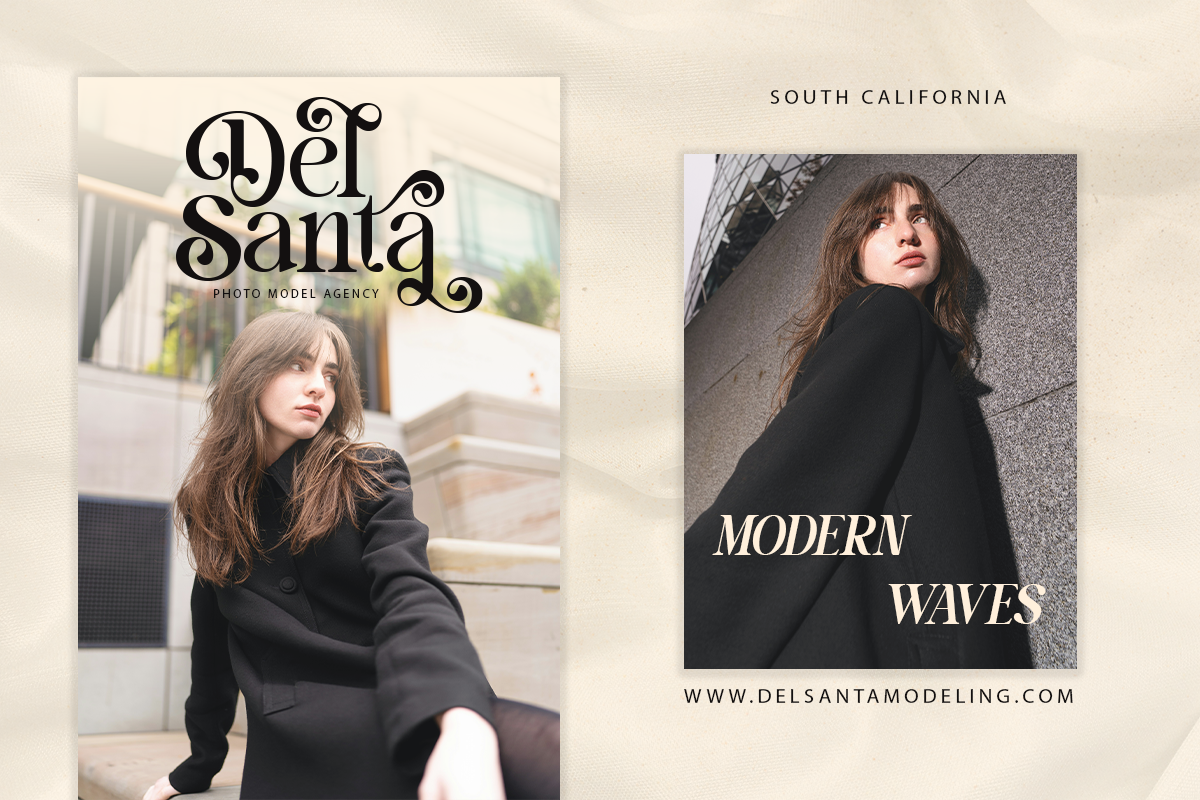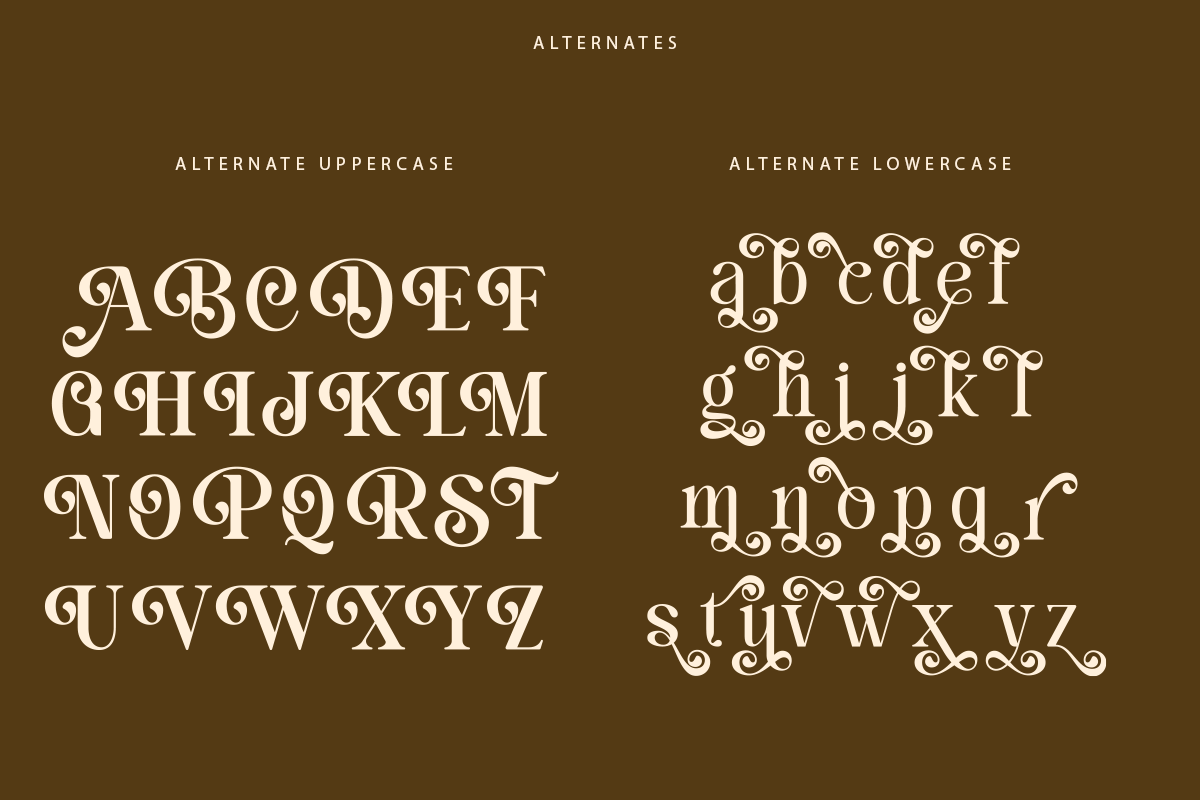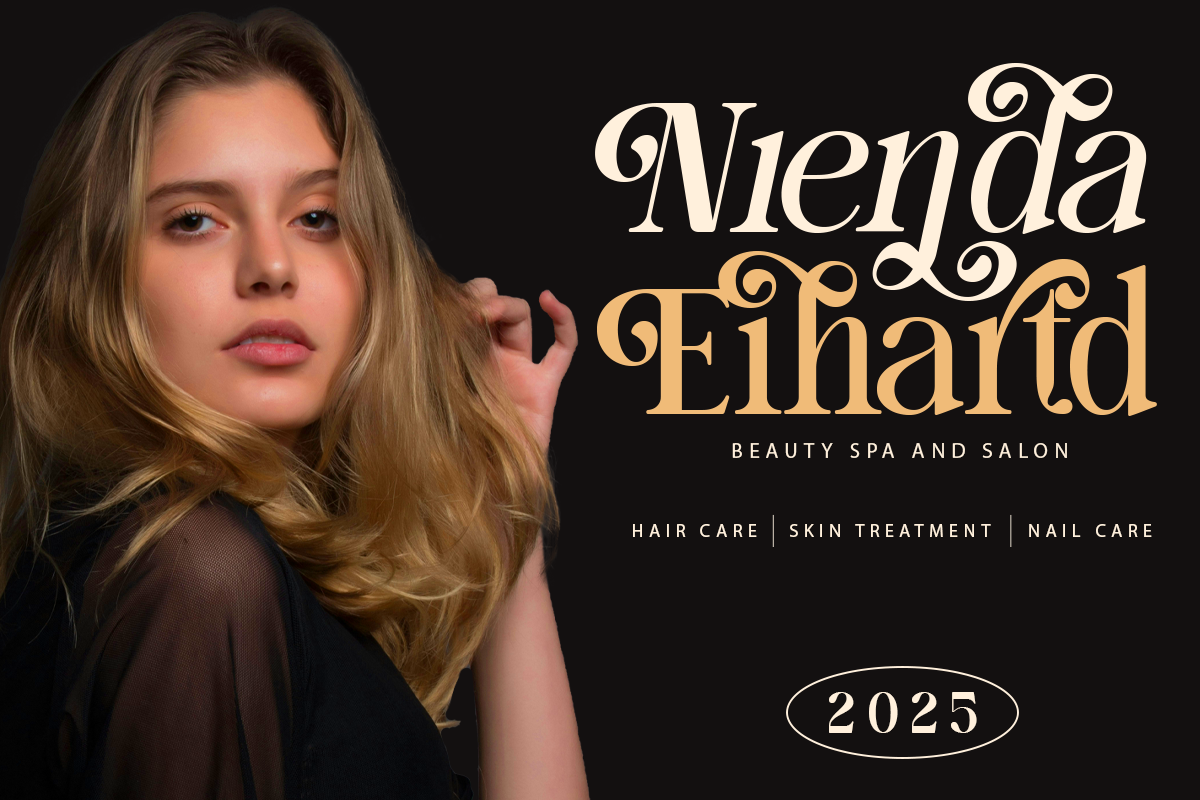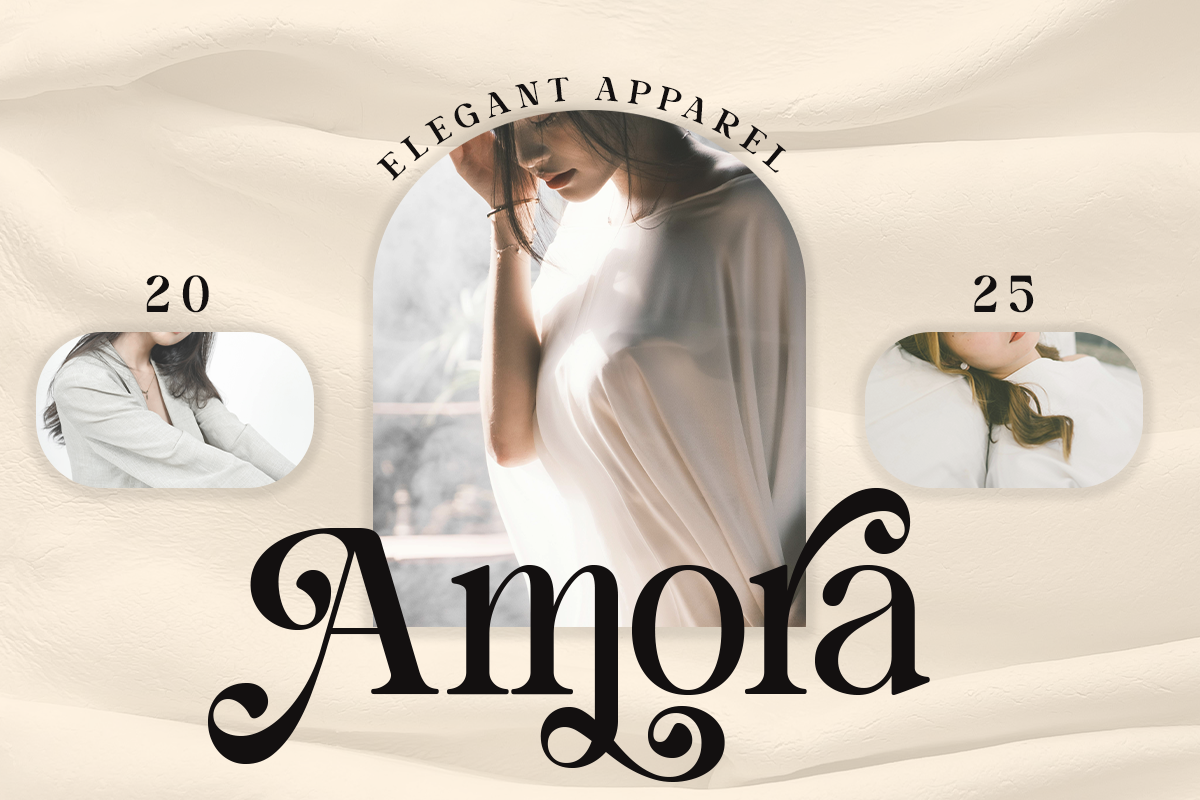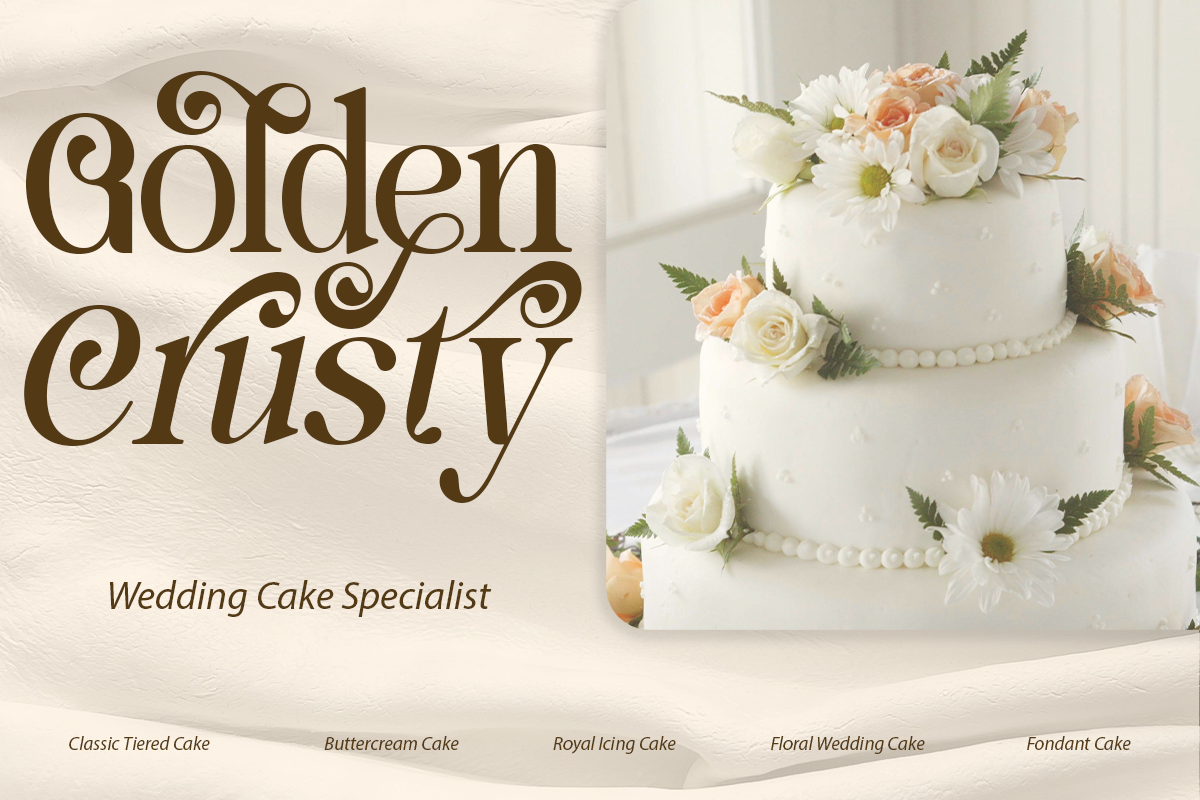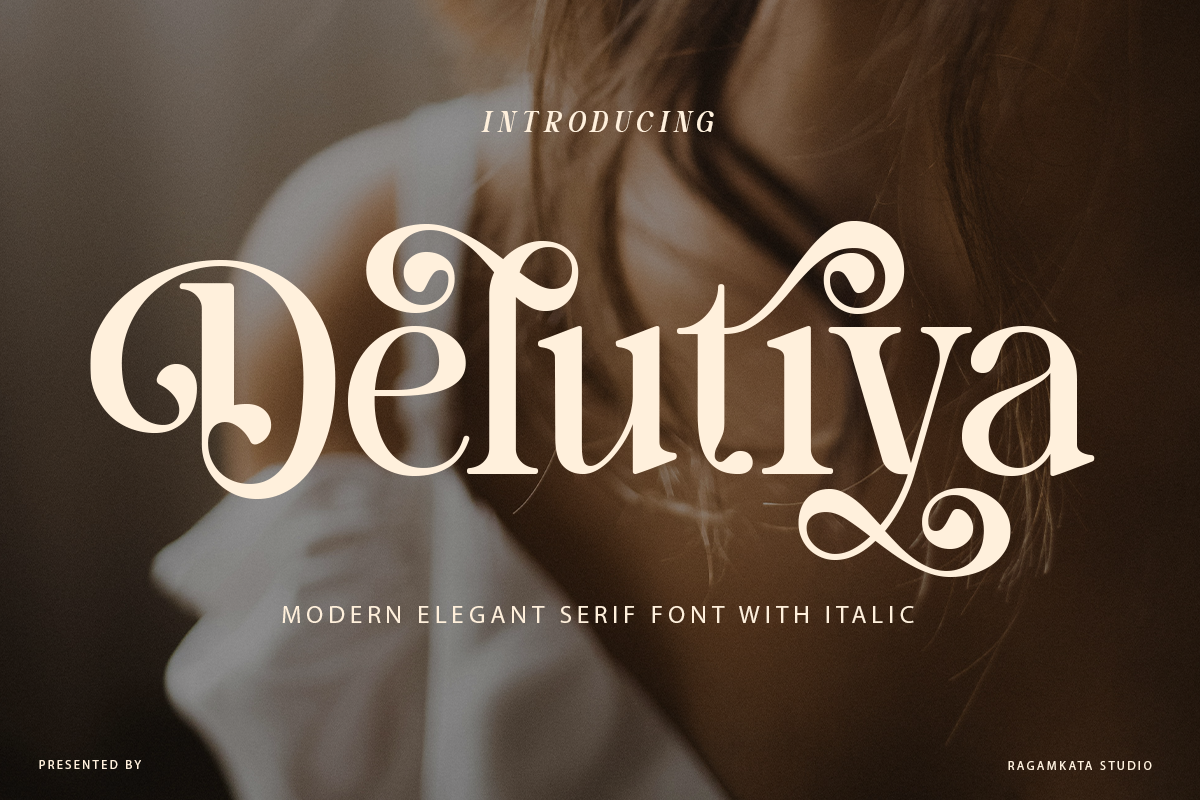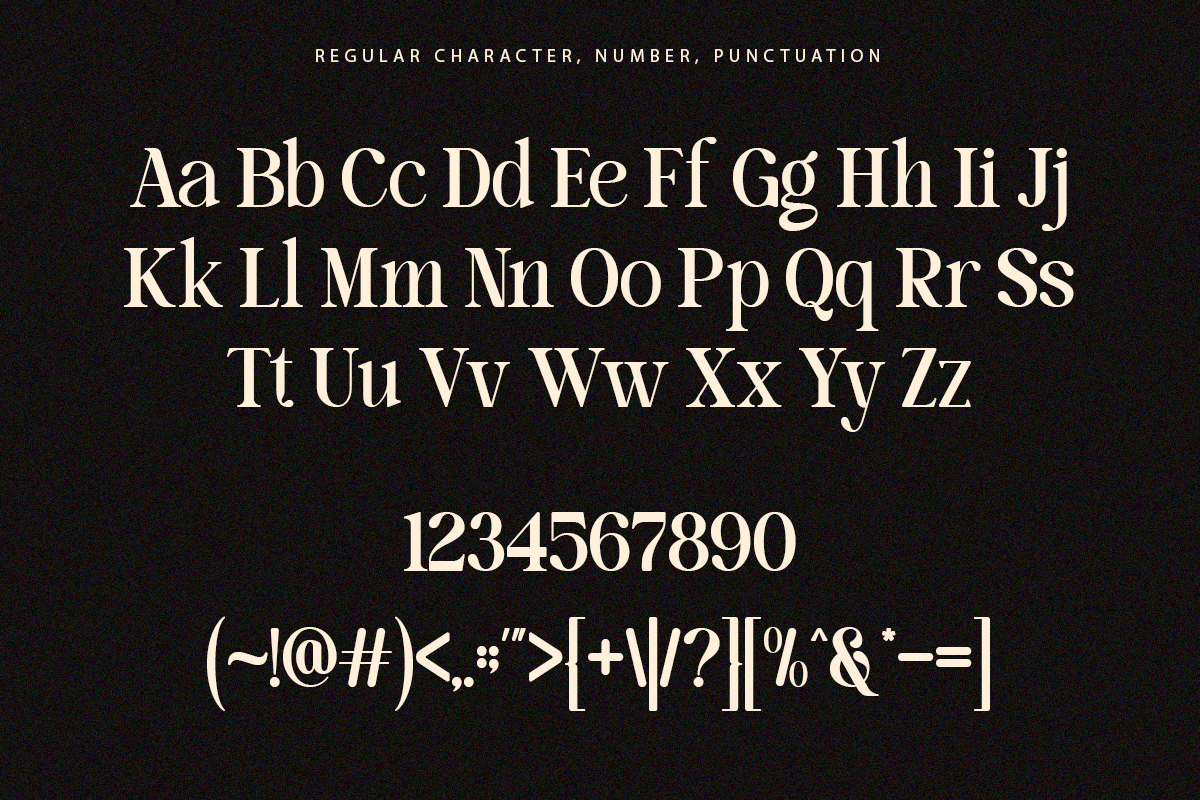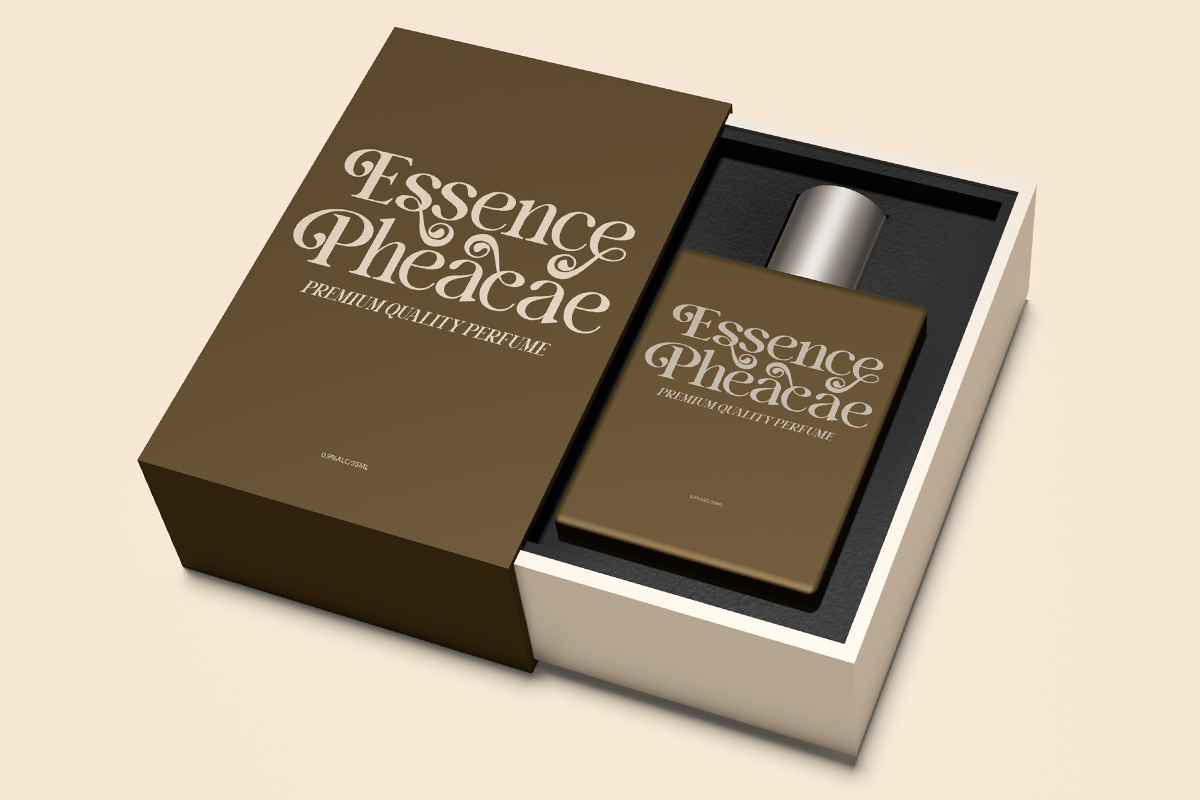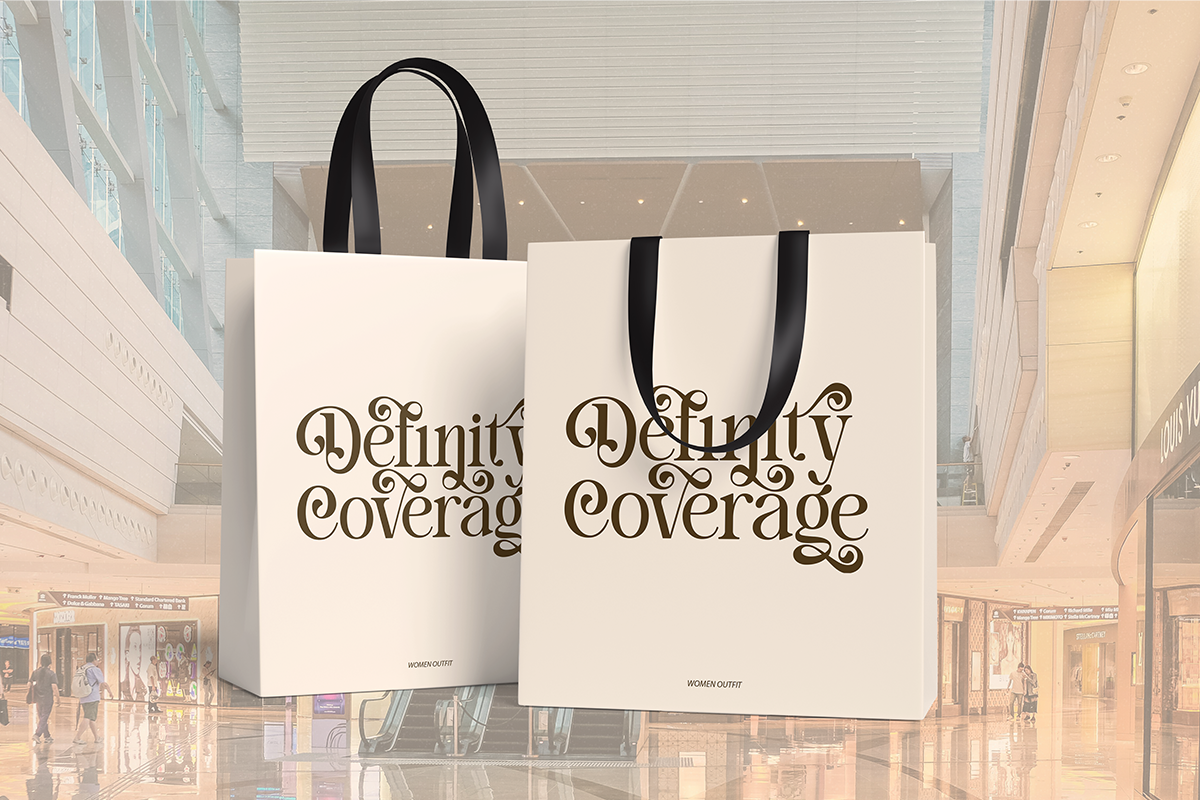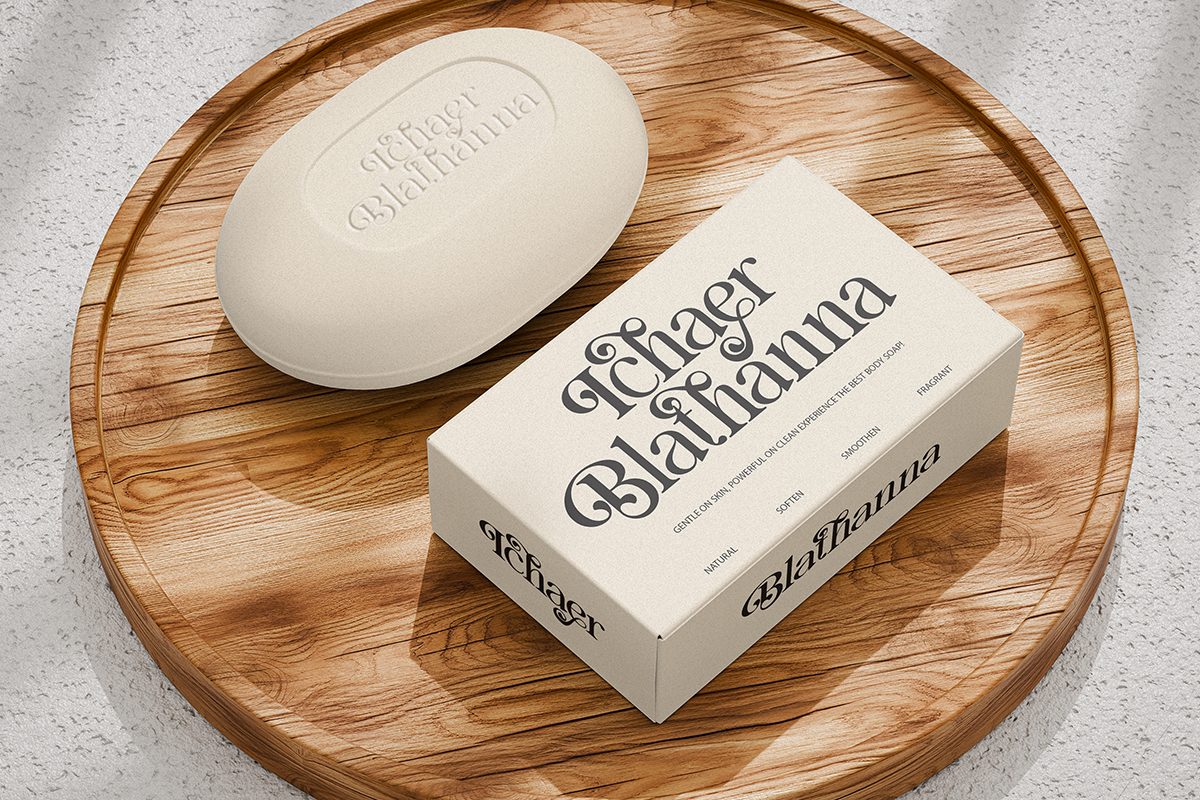
Delutiya - Elegant Serif Font
Introducing Delutiya is a Modern Elegant Serif Font. Delutiya comes with two versions Regular and Italic, and it has 50+ stylistic alternates for elegancy your design. Delutiya pretty serif family is perfect for all sorts of elegant designs like wedding invitations, but can also work great for logo, branding, website font and headers, or product labels. It's easy to read and the alternates are visually interesting
- 50+ Stylistic Alternates